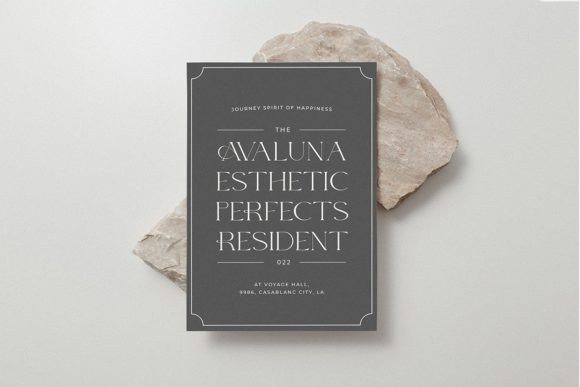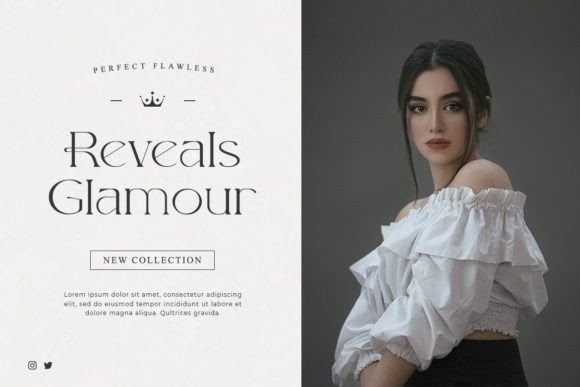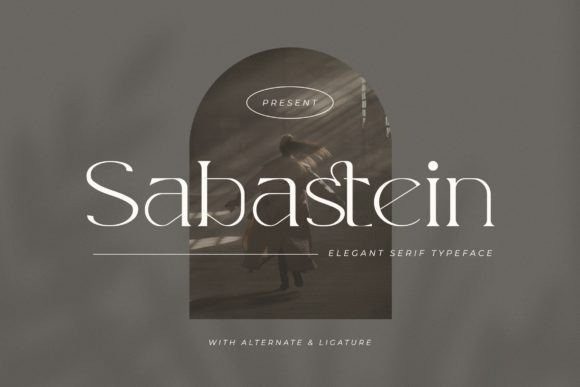
Sabastein Font
Sabastein Font is an elegant serif that blends traditional influences into a contemporary aesthetic.Elegantly crafted and easily matched to an incredibly large set of projects.Use this font to achieve an exquisite, yet subtle look and maximum versatility.This font is PUA encoded which means you can access all of the amazing glyphs and ligatures with ease!